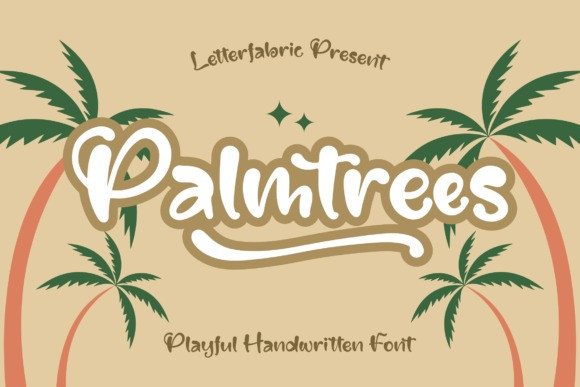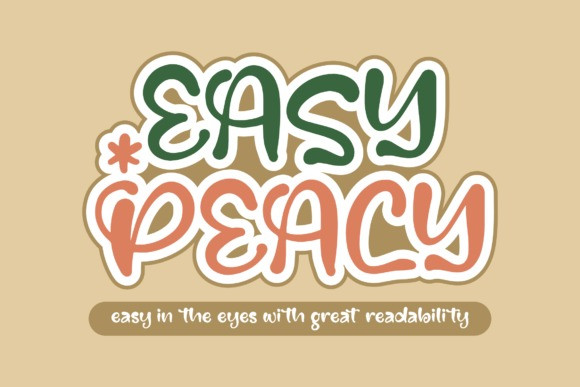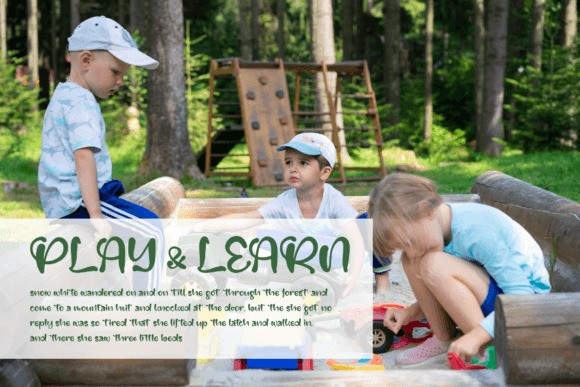
Palmtrees Font
Palmtrees is a playful handwritten font suitable for logos, branding projects, homeware designs, product packaging, mugs, quotes, posters, shopping bags, T-shirts, book covers, name cards, invitation cards, greeting cards, labels, photography, watermark, special events, and all your other lovely projects that need a beautiful touch.